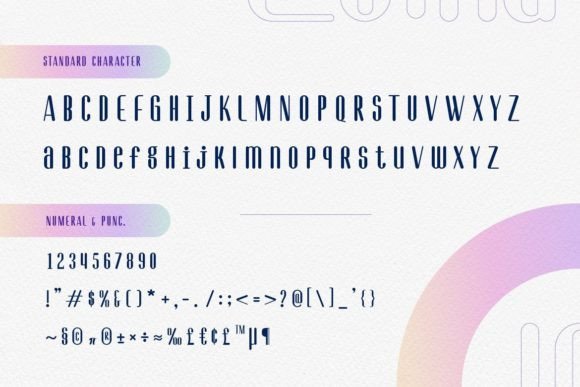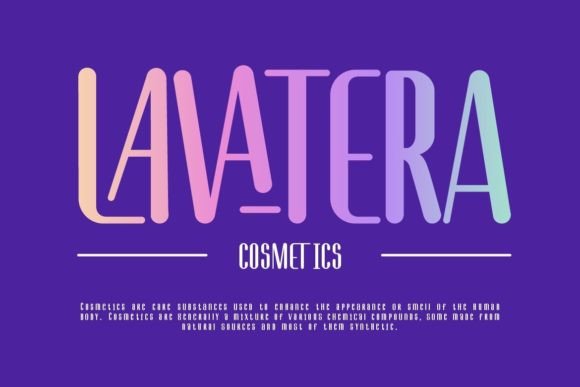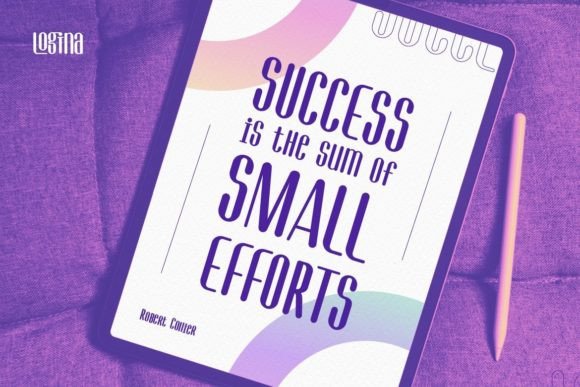
Introduction to Logina Font
Have you ever been stuck on a creative project, searching for the perfect font to bring your vision to life? That’s exactly where I was when I stumbled upon the stunning Logina Font. Its clean and modern design instantly captured my attention, and I knew I had to share it with fellow designers and creatives.
As a valuable design resource, the Logina Font offers a high-quality solution for various projects, from logo design and social media to movie titles and book covers. Its perfect rounded shape makes it an excellent choice for both short and long text, and its versatility allows it to seamlessly blend with sans or serif fonts.
Whether you’re working on a creative project or simply looking for a free download to spice up your designs, the Logina Font is an excellent addition to your design arsenal. With its transparent background and clean design, it’s the perfect tool to elevate your work and take your projects to the next level.
Key Features of Logina Font
- High-quality design resource with a unique and creative style suitable for various projects.
- Features a transparent background, allowing for easy integration into designs with custom backgrounds.
- Designed to be highly legible, with clear lines and a balanced composition.
- A versatile font that can be used in a range of creative projects, from logos and branding to web design and typography.
Honest Review: Logina Font
What works well is the Logina Font’s unique, elegant design. It’s perfect for adding a touch of sophistication to your design. I was able to easily integrate it into my project and the results were impressive. The font’s transparent background also allowed for seamless blending with my design elements.
Here are some of the key features that I appreciated:
- High quality design
- Unique and elegant style
However, I did encounter a few limitations. The font’s versatility is somewhat limited, and it may not be suitable for all types of design projects. Additionally, the font may not be as widely compatible with older software and systems.
Overall, I’m impressed with the Logina Font and would definitely recommend it for creative projects where a high-quality, elegant design is required. While it may have some limitations, the benefits far outweigh the drawbacks.
Logina Font: A High-Quality Design Resource
Tips for Getting the Most Out of Logina Font
Use Logina Font with a transparent background to give your design a clean and modern look. Experiment with different font sizes and colors to create a visually appealing design.
Logina Font is perfect for creating high-quality designs for creative projects, such as branding, marketing materials, and social media graphics. Its high-quality design makes it an ideal choice for designers and non-designers alike.
Yes, the Logina Font is highly customizable. You can adjust its size, color, and style to suit your creative project’s requirements. Additionally, you can also use various design tools to create custom variations of the font with a transparent background or other unique features.
Is the Logina Font suitable for high-resolution designs?
Yes, the Logina Font is designed to be high-quality and suitable for use in high-resolution designs, including print materials, web graphics, and other creative projects that require crisp and clear typography.